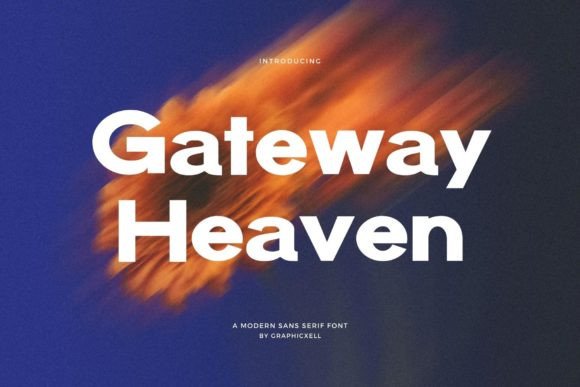
Journey through a universe of visual elegance with Gateway Heaven Font, a font family that boldly transcends the boundaries of ordinary typography. This modern sans serif font radiates with a contemporary allure, its clean lines and sleek letterforms creating a striking and sophisticated visual experience. As a creation of Graphicxell, Gateway Heaven represents the pinnacle of digital artistry, meticulously crafted to meet the demands of discerning designers.
With its captivating presence, Gateway Heaven commands attention in both digital and print realms. Its versatility allows it to seamlessly adapt to a myriad of design projects, including branding, logos, and editorial masterpieces. Whether gracing a website, adorning a business card, or leaving an imprint in the world of print, Gateway Heaven elevates your designs to new heights.
Experience the allure of Gateway Heaven and witness the transformation of your creative vision into a stunning reality. Step into a world where typography takes center stage, where every letter, every word, every sentence becomes a captivating work of art. Unleash the boundless potential of this modern sans serif font and let your designs shine brighter than ever.